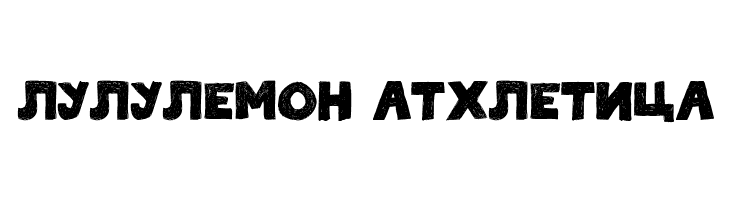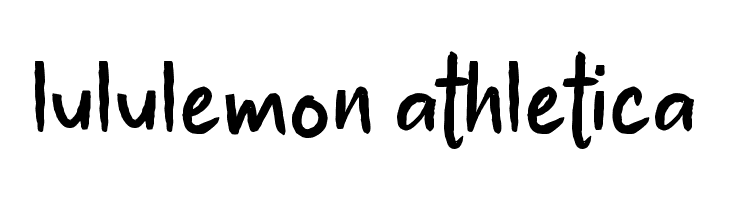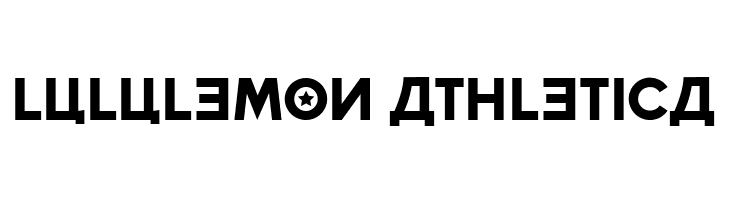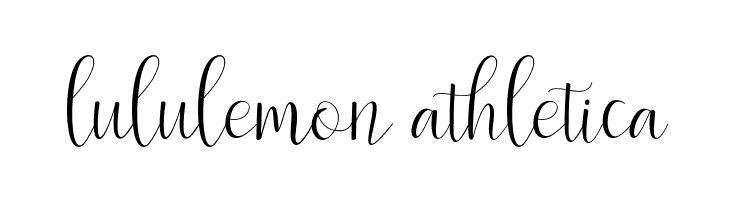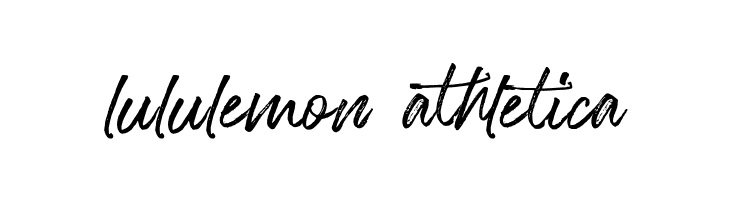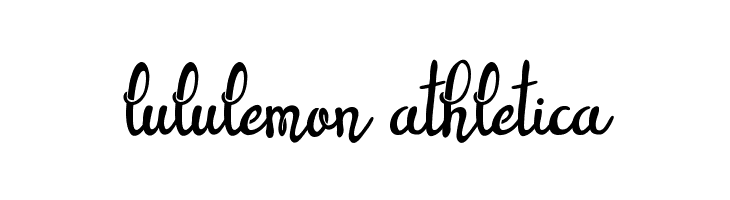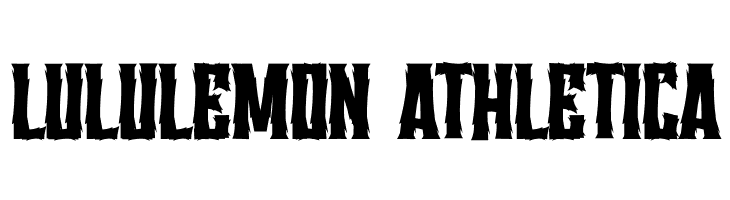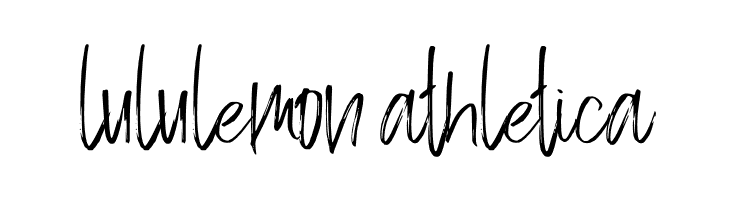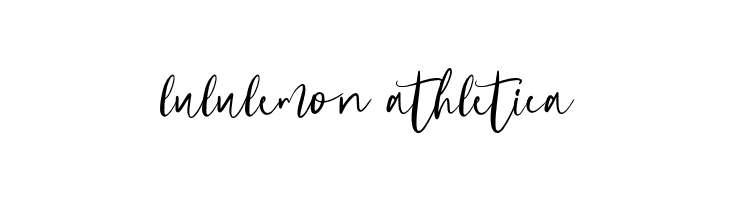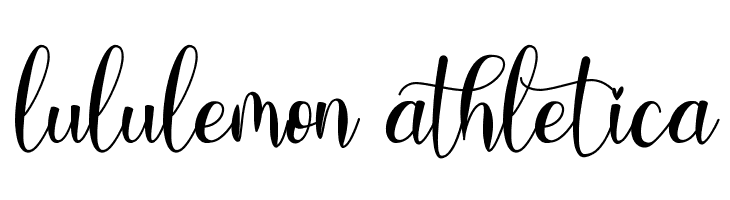
( Fonts by Nirmana Visual - Sigit Dwipa - Personal-use only. For commercial use please contact owner. ) A stylish and elegant cursive font with expressive loops and swashes. Descarcă 39 Descărcări@WebFont
( Fonts by Yadhie Setiawan - typelinestudio.com - Personal-use only. For commercial use please contact owner. ) A dynamic and fluid script font with elegant, flowing strokes. Descarcă 450 Descărcări@WebFont
( Fonts by Letterena Studios - letterena.com - Personal-use only. For commercial use please contact owner. ) A modern, elegant handwritten script with fluid, cursive strokes. Descarcă 38 Descărcări@WebFont
( Fonts by Letterena Studios - letterena.com - Personal-use only. For commercial use please contact owner. ) A cursive, handwritten-style font with elegant, flowing lines. Descarcă 27 Descărcări@WebFont
( Fonts by Riki - Personal-use only. For commercial use please contact owner. ) A lively and expressive script font with fluid, interconnected strokes. Descarcă 30 Descărcări@WebFont
( Fonts by Hugefonts - Personal-use only. For commercial use please contact owner. ) A lively, expressive script font with fluid, dynamic strokes and a modern aesthetic. Descarcă 98 Descărcări@WebFont
( Fonts by Hugefonts - Personal-use only. For commercial use please contact owner. ) A fluid and elegant handwritten font with smooth curves and flowing lines. Descarcă 74 Descărcări@WebFont
( Fonts by Vunira Design - Personal-use only. For commercial use please contact owner. ) A fluid and elegant script font with a natural handwriting style. Descarcă 45 Descărcări@WebFont
( Fonts by Vunira Design - Personal-use only. For commercial use please contact owner. ) A dynamic and elegant script font with fluid, interconnected strokes. Descarcă 40 Descărcări@WebFont
( Fonts by Amarlettering - Takiy - Personal-use only. For commercial use please contact owner. ) An elegant script font with flowing, high-contrast strokes and graceful curves. Descarcă 29 Descărcări@WebFont
( Fonts by Amarlettering - Takiy - Personal-use only. For commercial use please contact owner. ) An elegant script font with flowing, interconnected letters and refined style. Descarcă 24 Descărcări@WebFont
( Fonts by Arief HK - Personal-use only. For commercial use please contact owner. ) A dynamic, cursive font with a handcrafted, italic style. Descarcă 36 Descărcări@WebFont
( Fonts by Creakokun Studio - Personal-use only. For commercial use please contact owner. ) A bold, playful handwritten font with thick strokes and rounded edges. Descarcă 54 Descărcări@WebFont
( Fonts by a Max Infeld - XEROGRAPHER FONTS - xerographer.blogspot.com . Personal-use only. For commercial use please contact owner. ) A geometric, angular font with a futuristic and edgy design. Descarcă 84 Descărcări@WebFont
( Fonts by Mans Greback - www.mansgreback.com - Personal-use only. For commercial use please contact owner. ) A dynamic handwritten font with fluid, expressive strokes. Descarcă 36 Descărcări@WebFont
( Fonts by Mans Greback - www.mansgreback.com - Personal-use only. For commercial use please contact owner. ) A dynamic, calligraphic font with fluid, expressive strokes. Descarcă 20 Descărcări@WebFont
( Fonts by Perspectype Studio - Personal-use only. For commercial use please contact owner. ) An elegant script font with decorative swirls and flowing lines. Descarcă 26 Descărcări@WebFont
( Fonts by Perspectype Studio - Personal-use only. For commercial use please contact owner. ) An elegant script font with flowing, cursive letters and ornate details. Descarcă 53 Descărcări@WebFont
( Fonts by twinletter - Rozikan - Personal-use only. For commercial use please contact owner. ) A bold, modern sans-serif font with clean, geometric lines. Descarcă 132 Descărcări@WebFont
( Fonts by wep - Wahyu Eka Prasetya - Personal-use only. For commercial use please contact owner. ) A bold, dynamic brush script font with energetic strokes. Descarcă 93 Descărcări@WebFont
( mlkwsn - Malik Wisnu ) A bold, geometric font with sharp angles and a modern aesthetic. Descarcă 85 Descărcări@WebFont
( Fonts by Kong Font - https://fontkong.com/ - Personal-use only. For commercial use please contact owner. ) A bold, geometric font with a modern and assertive style. Descarcă 70 Descărcări@WebFont
( Fonts by vladimirnikolic - Personal-use only. For commercial use please contact owner. ) A bold, textured font with a vintage, handcrafted appearance. Descarcă 203 Descărcări@WebFont
( Fonts by Vladimir Nikolic - www.creativefabrica.com/designer/vladimirnikolic/ - Personal-use only. For commercial use please contact owner. ) A bold, geometric font with a modern and impactful design. Descarcă 37 Descărcări@WebFont
( Fonts by wep - Wahyu Eka Prasetya - Personal-use only. For commercial use please contact owner. ) A bold, brush-style font with dynamic, hand-drawn characters. Descarcă 88 Descărcări@WebFont
( Fonts by wep ) A bold, handwritten font with a playful and casual style. Descarcă 370 Descărcări@WebFont
( Fonts by wep - Wahyu Eka Prasetya - Personal-use only. For commercial use please contact owner. ) A bold, handwritten-style font with dynamic and expressive characters. Descarcă 60 Descărcări@WebFont
( Fonts by Haksen Studio - Sarwo Edhi Prayitno - Personal-use only. For commercial use please contact owner. ) A bold, expressive handwritten font with dynamic strokes and a modern flair. Descarcă 50 Descărcări@WebFont